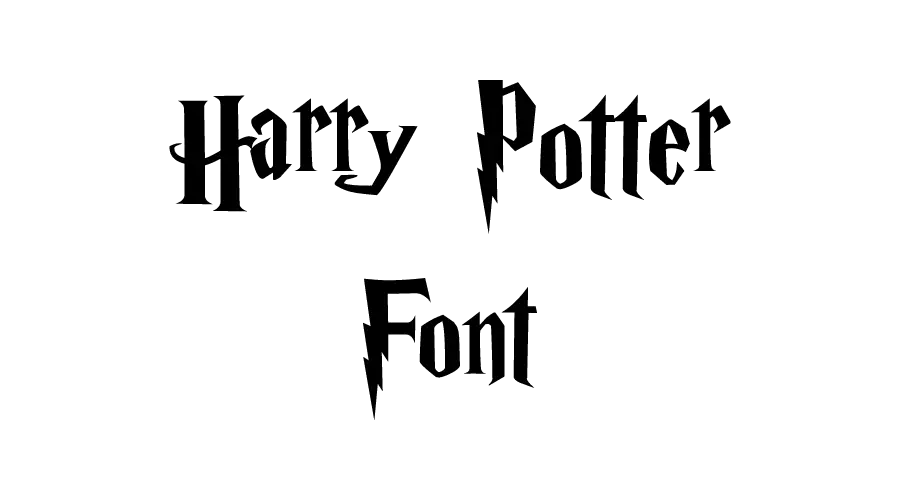
Beautifully designed Harry Potter font you can download for free and for non-commercial purposes. It came from the famous novel Harry Potter. J. K. Rowling who is a British author wrote this novel series. A couple of fonts used in the novel and on the cover page.
The book was named by the prime character ‘Harry Potter’ who was an orphan young fellow. He was the only son of a wizard and witch and that gave him the opportunity to go and learn magic from the wizardry school. In the novel, you can know the adventures of the young wizard with his friends and witchcraft.
As already said, a couple of style fonts you can find in the novel from cover page to character names. The organizer and publisher team also used different fonts for chapter titles and elsewhere. The experts’ mentioned the title of the book font is very similar to a typeface named ‘Hocus Pocus’. It came with an individual complete character set in four styles.
Another font named ‘Able’ created by Marcus Burlie is very close to the novel’s page numbers and chapter title. Also, ‘Felt Tip Roman’ font made by Mark Simon used for Rubeus Hagrid’s handwriting. Harry Potter series contains some of the stylish fonts that are good with the theme with a wizardry look. You can download and use personal purposes from here.
The prime usage of the Harry Potter fonts is for a stylishly designed cover page along with the heading and titles. Some of the font styles of this font set are amazing for inside text and captions. You can use them for the whole content.
Also for the banner or featured image, the Harry Potter font is good to use. Besides, it has an appealing presentable look for any kind of title of the script. Non-commercial invitation letter, postcard, greeting cards are some section to use Harry potter font for the exceptional presentation.
What type of font is Harry Potter?